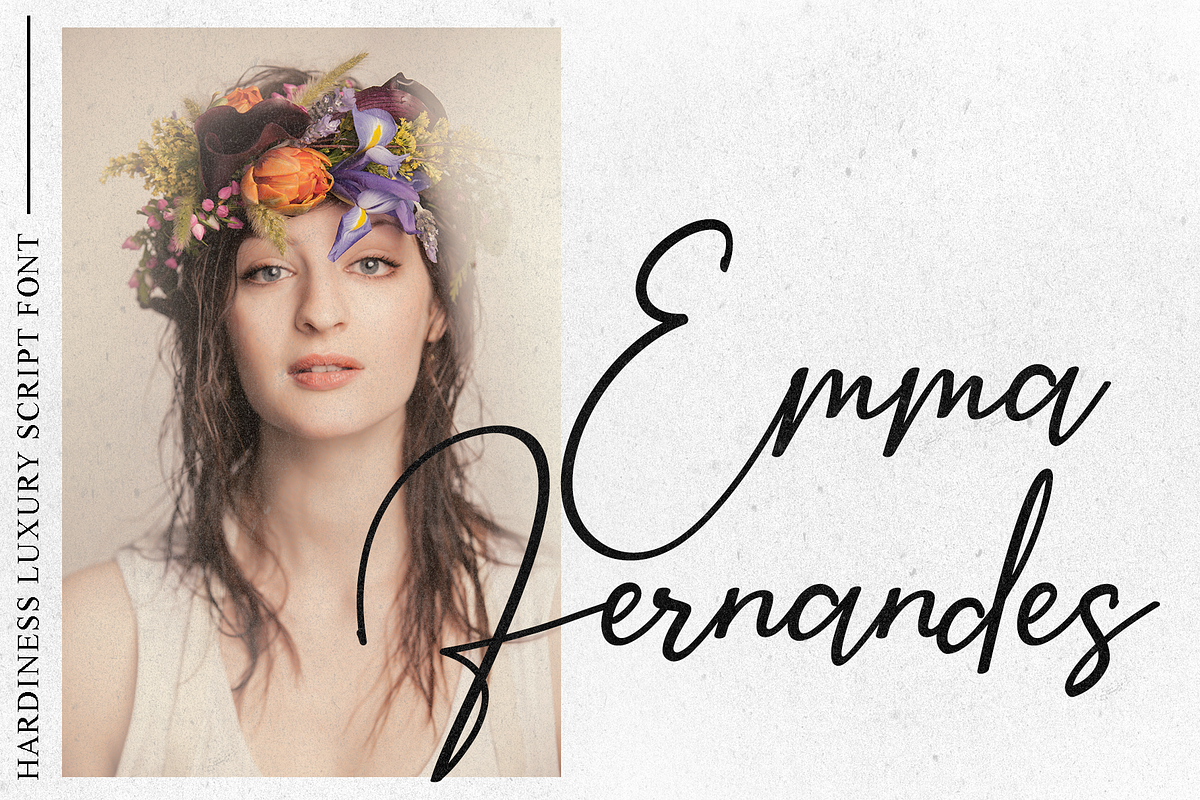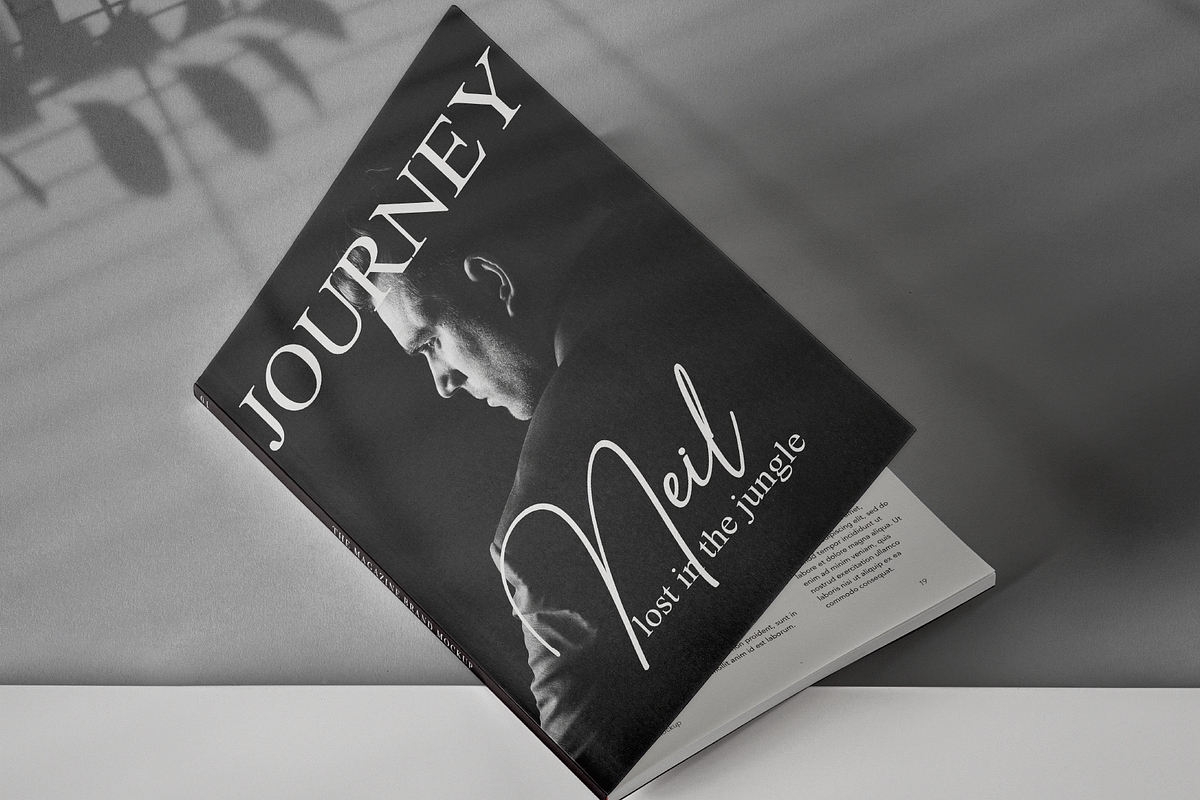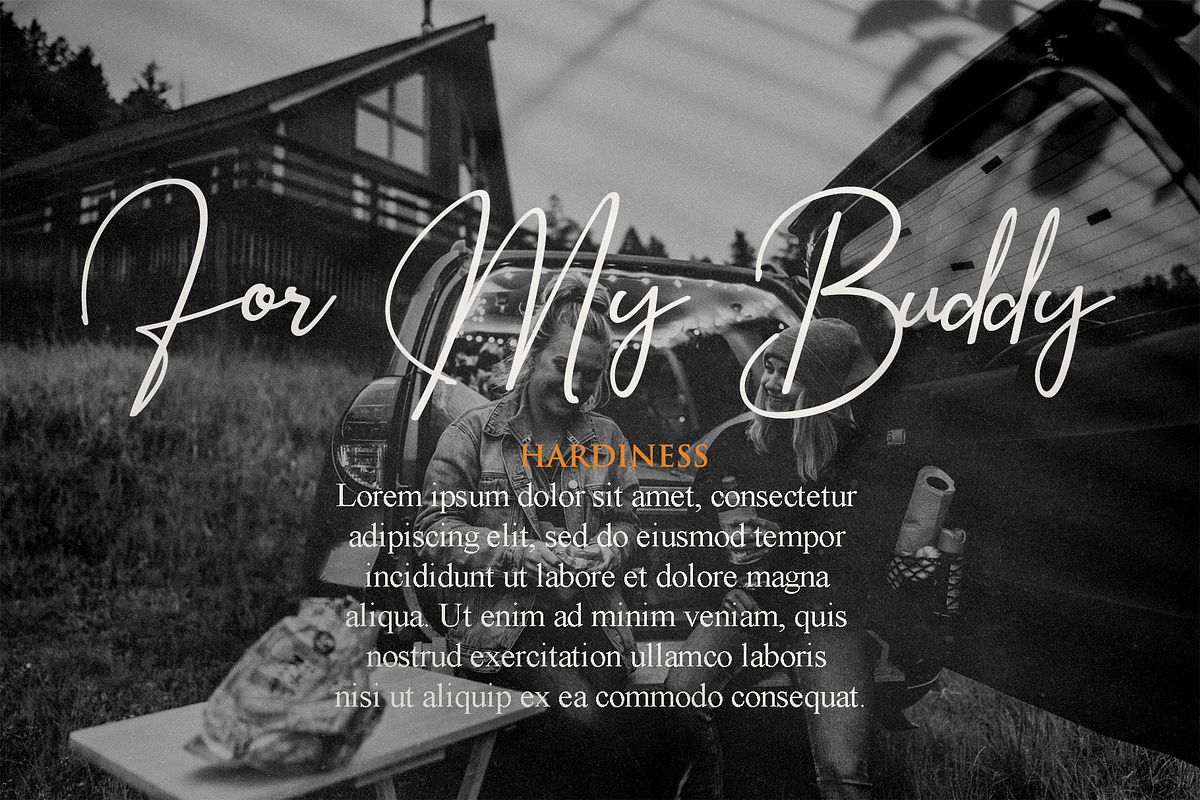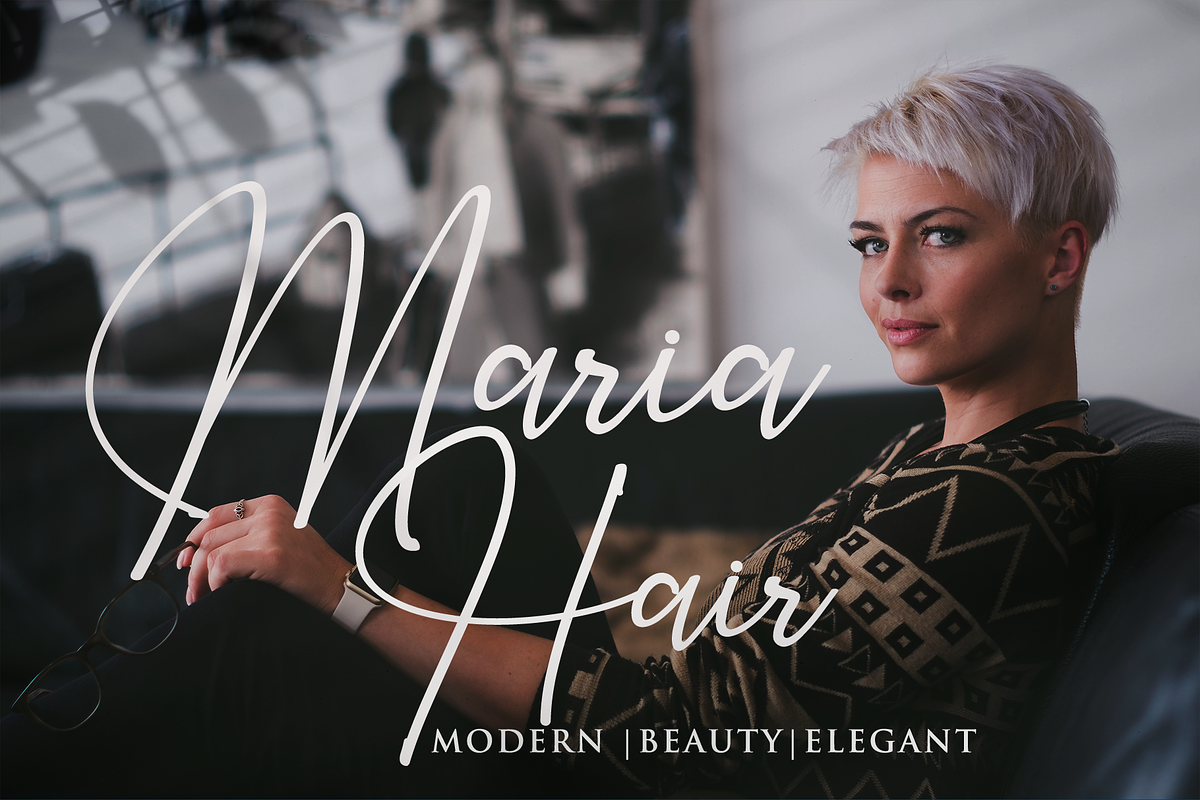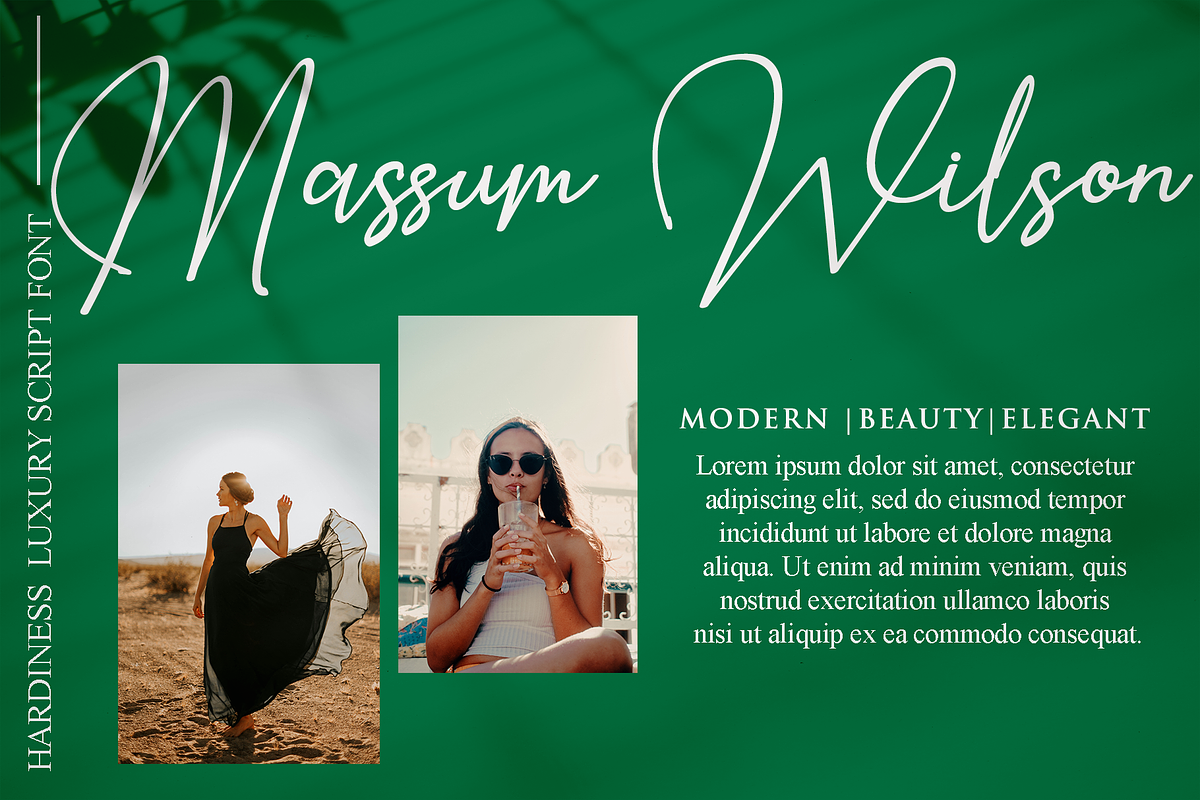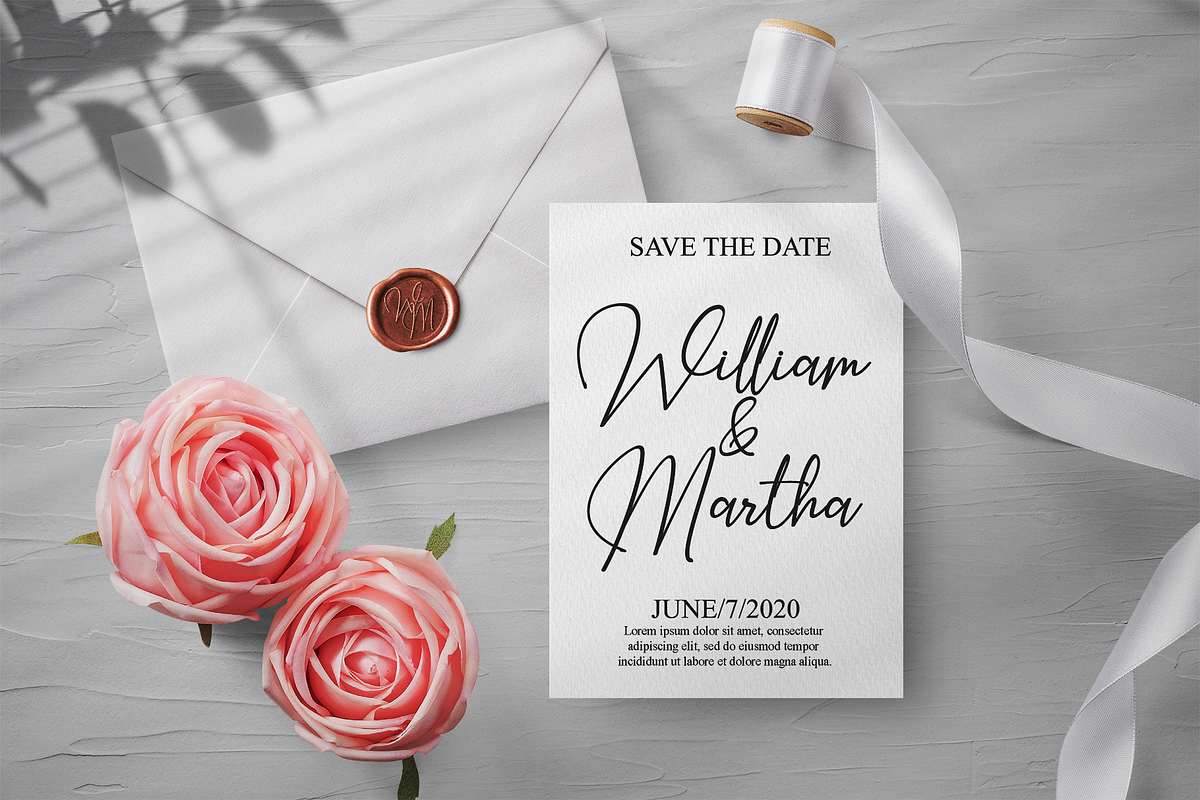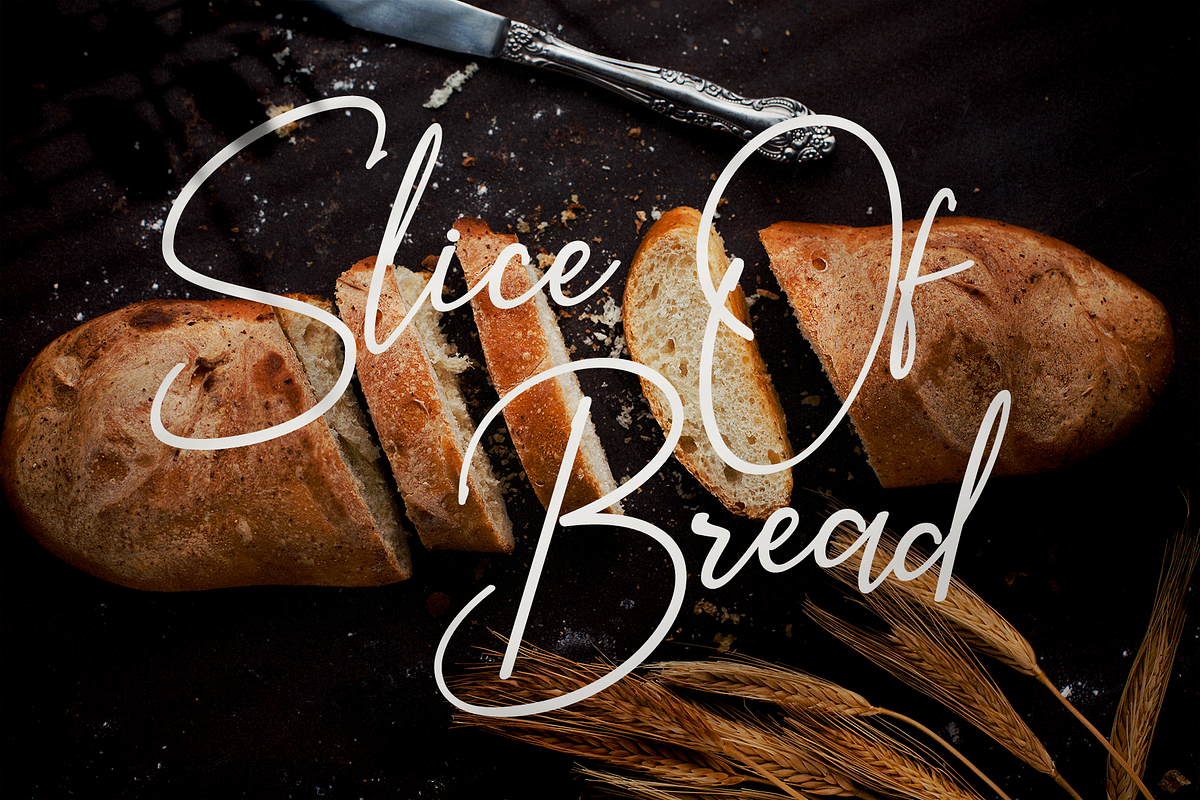
Hardiness - Luxury Script Font
Helo Introducing, Hardiness. Amazing hand lettering look attractive and natural! Every single letters have been carefully crafted to make your text looks beautiful. This font is suitable for invitation, branding, advertising, classic design, poster design etc. Font is PUA encoded so you can access extras from character map in most design software.